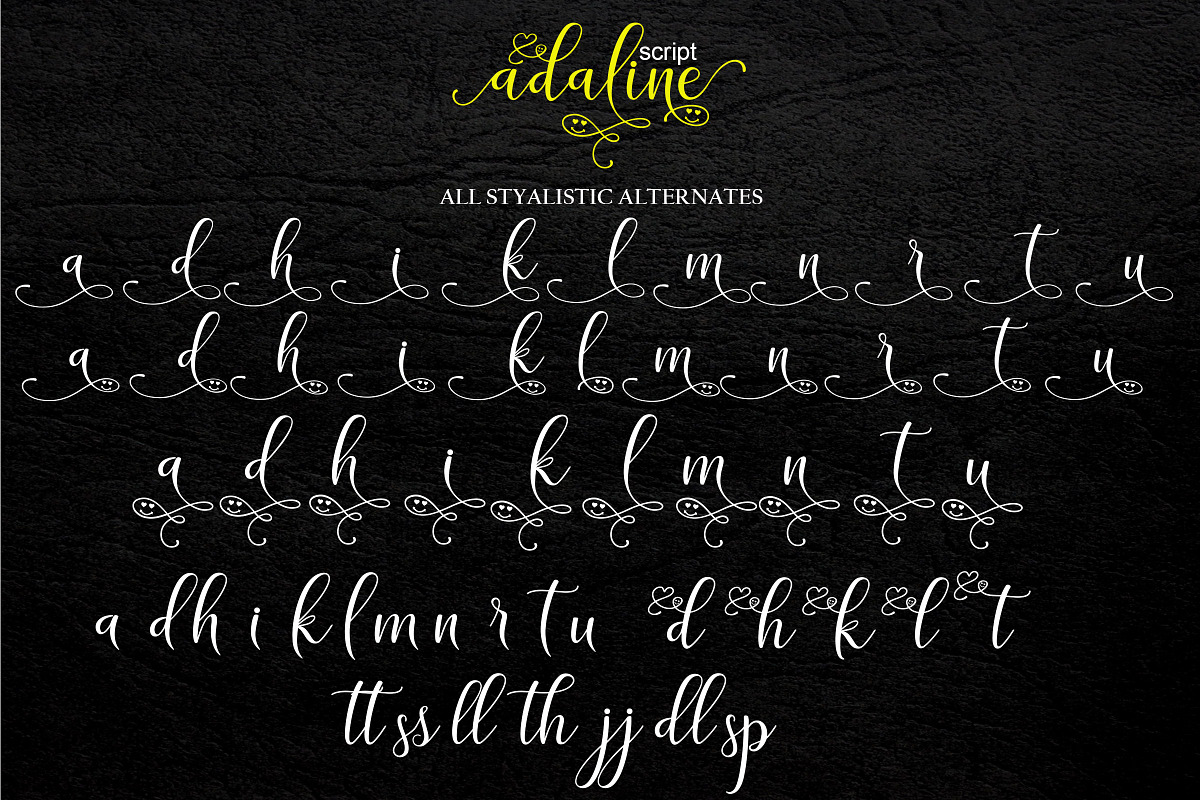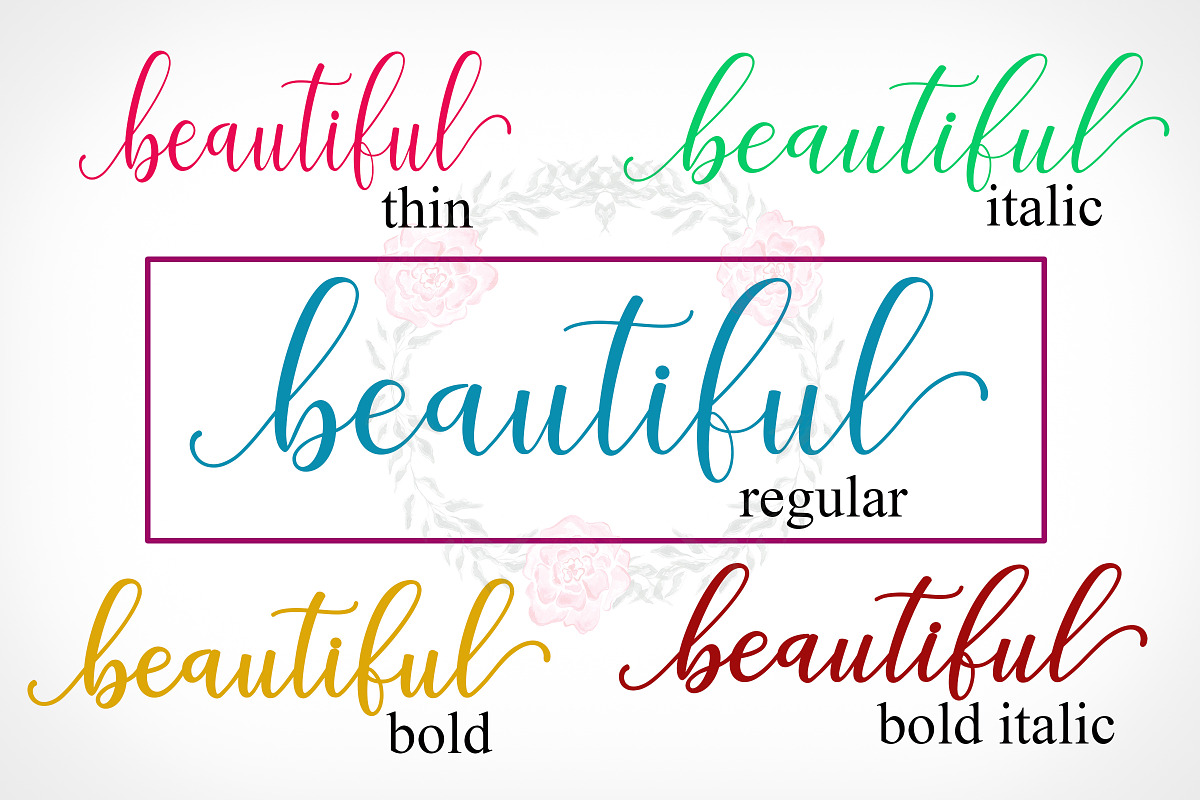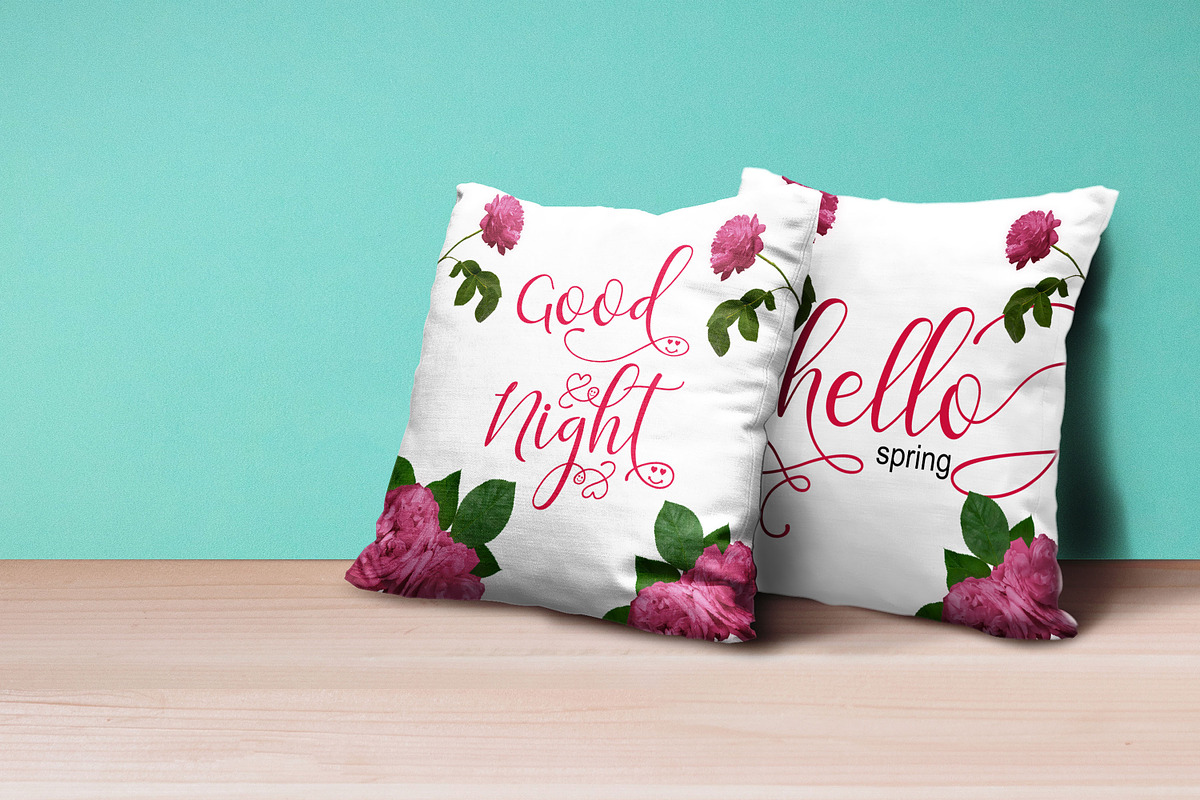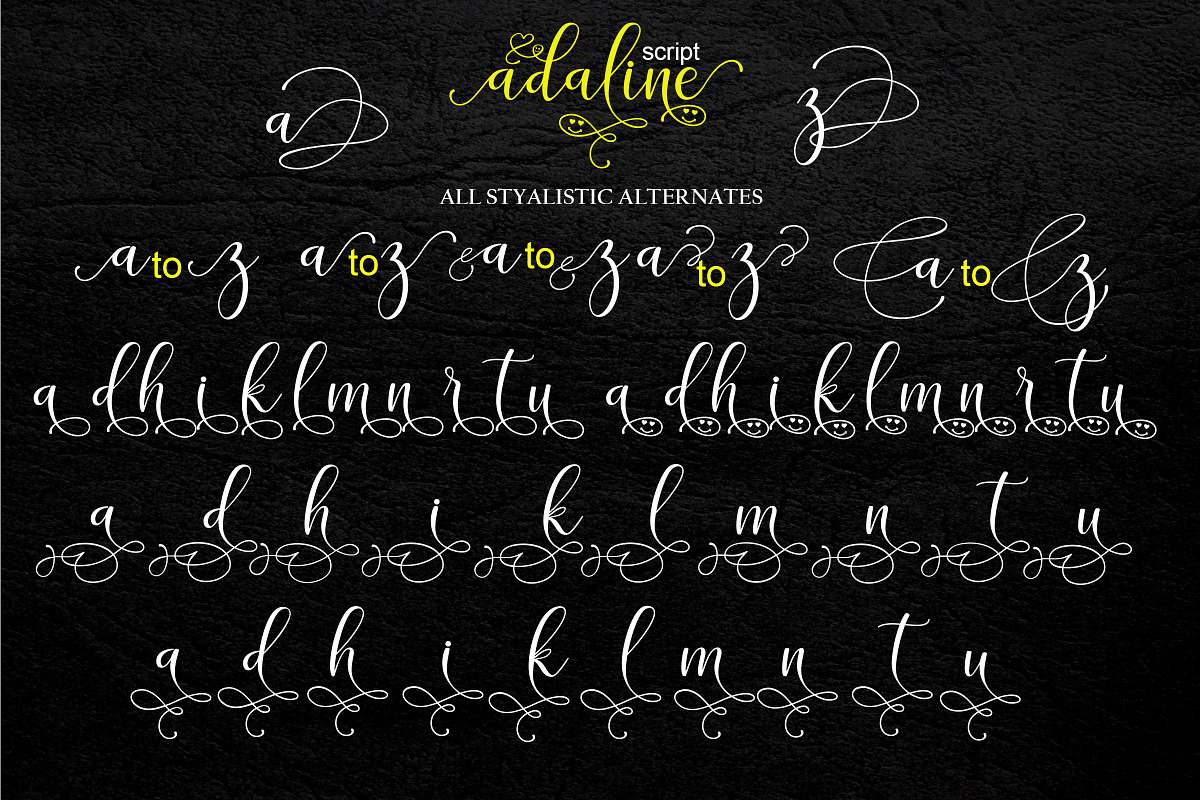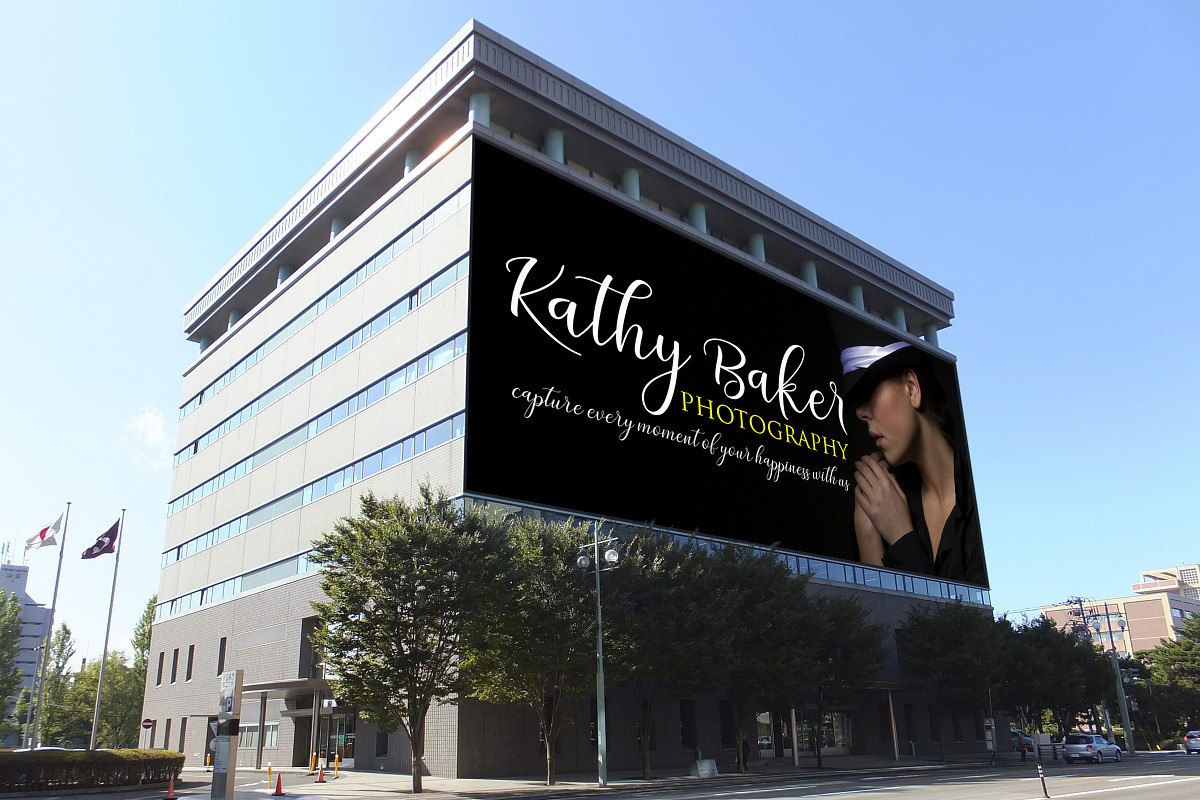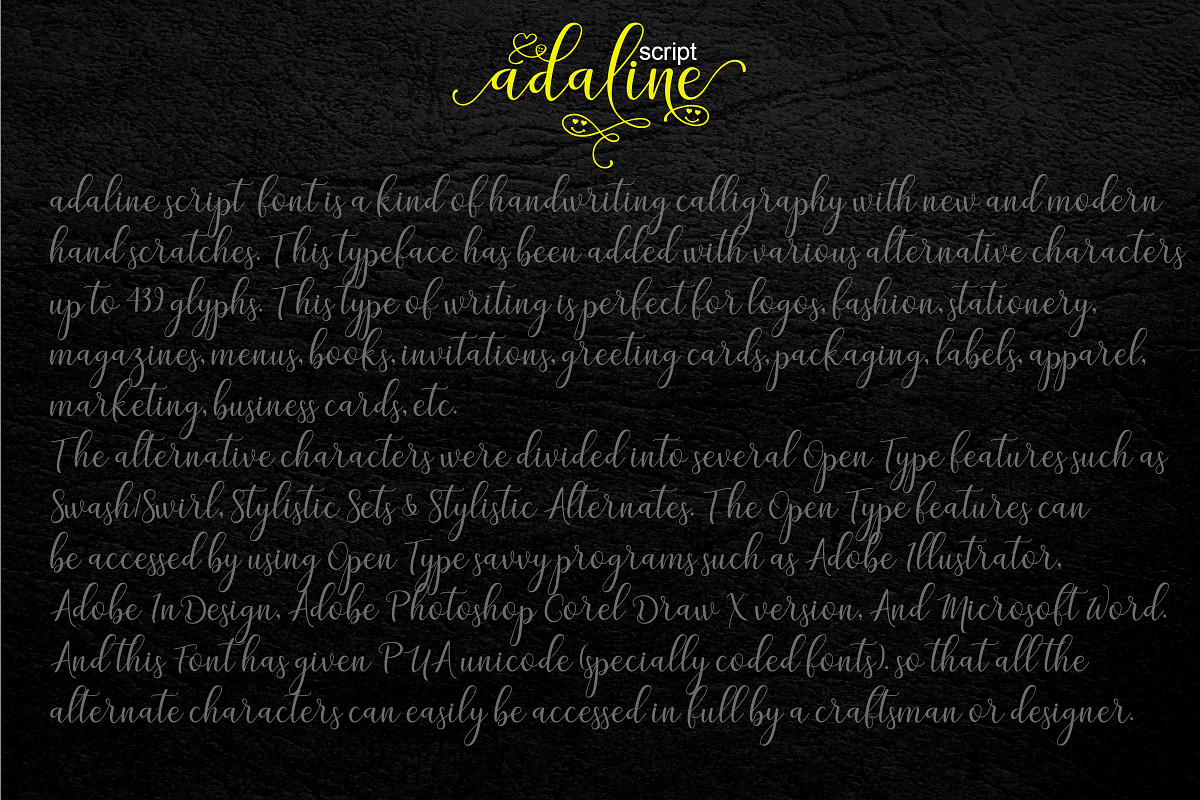
Adaline Script
Adaline Script a new fresh & modern script with a handmade calligraphy style, decorative characters and a dancing baseline! So beautiful on invitation like greeting cards, branding materials, business cards, quotes, posters, lettering and more !!
Adaline Script come with 500+ glyphs. The alternative characters were divided into several Open Type features such as Swash, Stylistic Sets, Stylistic Alternates, Contextual Alternates. The Open Type features Adobe Flash Player Adobe Illustrator, Adobe InDesign, Adobe Photoshop Corel Draw X version, And Microsoft Word. And this Font has given PUA unicode (specially coded fonts). so that all the alternate characters can be accessed in full by a craftsman or designer.
Uppercase & Lowercase International Languange & Symbols Support Punctuation & Number PUA Unicode Range Standard Stylistic Alternates Stylistic Set 1-16 Character Variant Contextual.